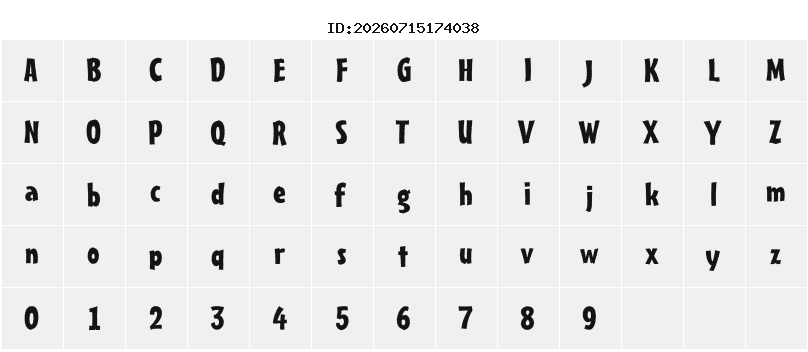
a_FrudgerRgh Preview
• Font Name: a_FrudgerRgh
• Font ID: ArsenalCompany: a_FrudgerRgh: 1998
• Full Font Name: a_FrudgerRgh
• Version: Version 1.2; 1998
• PostScript Name: a_FrudgerRgh
• Character Count: 309
• Designer: W.Chufarofsky & M.Slutsker
About a_FrudgerRgh.ttf
a_FrudgerRgh.ttf is a modern, elegant sans-serif font designed for ultimate readability and visual harmony. Perfect for branding, headlines, web design, and print materials.